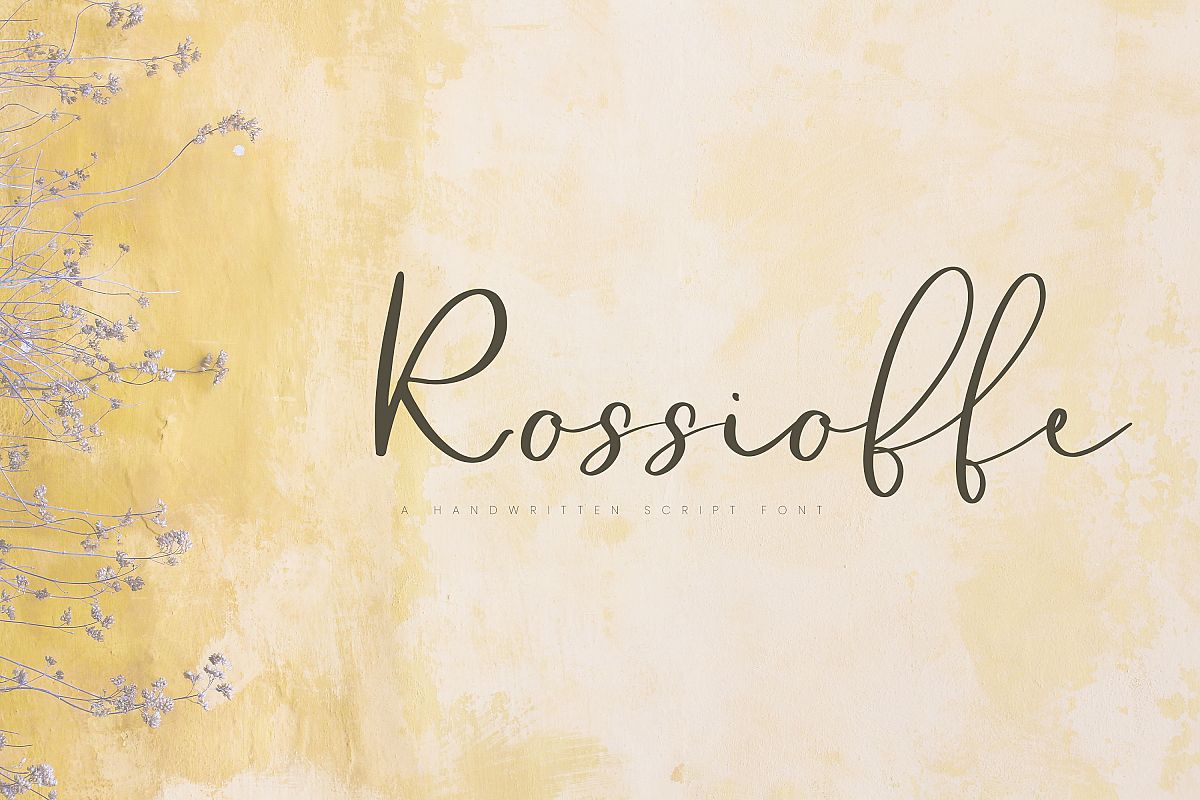
Rossioffe, handwritten script font
Rossioffe
Rossioffe is a handwritten script font for signature logos, blog post projects, headings, invitations, greeting cards and more!